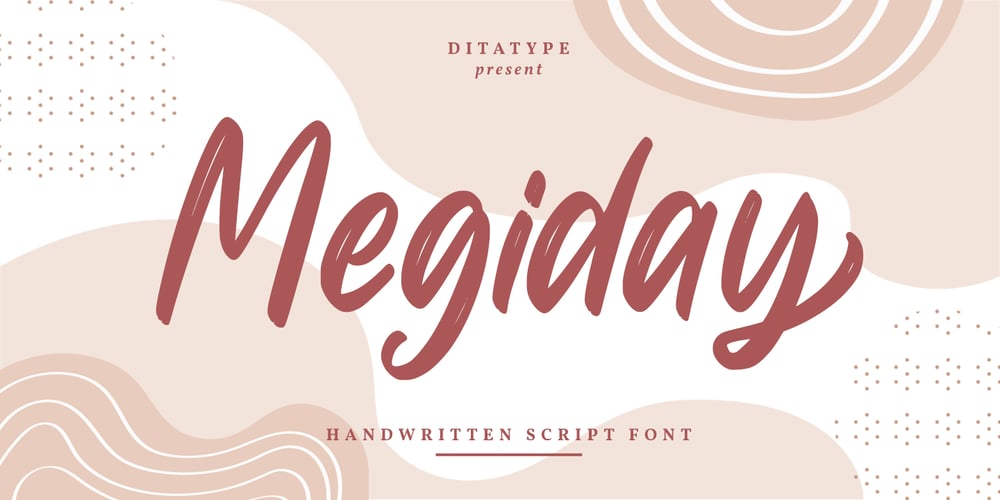
Megiday
Megiday font
Megiday Font Family was designed by Donis Miftahudin and published by Ditatype. Megiday contains 1 styles and family package options. Megiday is a elegant handwritten font. Made for any professional project branding. It is the best for logos, branding and quotes. Every letter has a unique and beautiful touch.Includes:Megiday (OTF)Features: Beautiful Ligatures Stylistic Set Multilingual Support PUA Encoded Numerals and Punctuation Thank you for downloading premium fonts from Dita Type